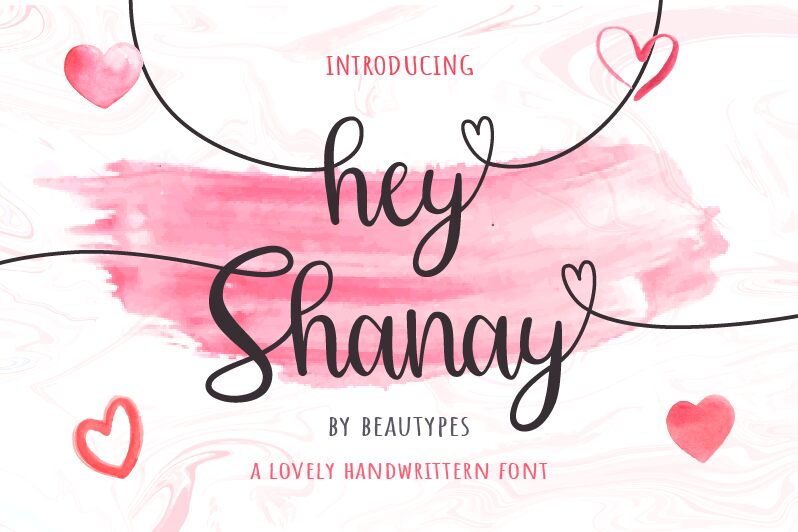
Hey Shanay font is a beautiful handwritten typeface designed by Yan Suari Shakti Pasaribu of Beautypes Studio.
Hey Shanay
Beautypes Studio
Yan Suari Shakti Pasaribu